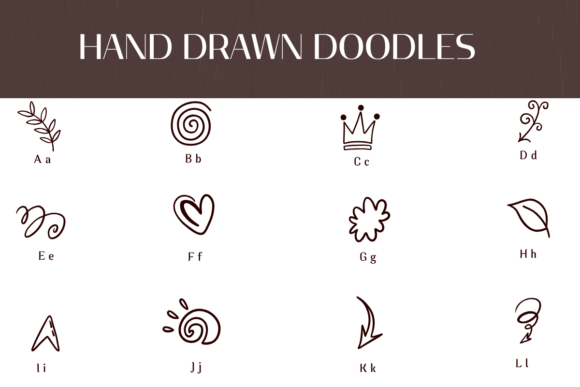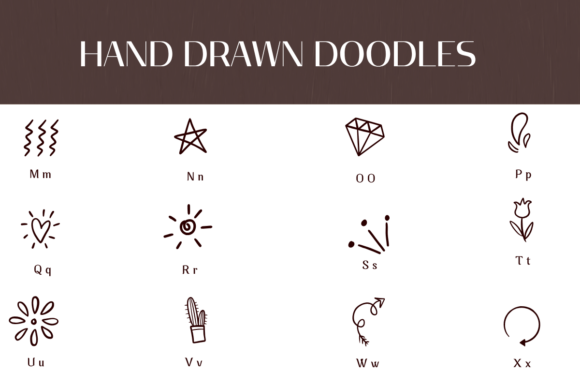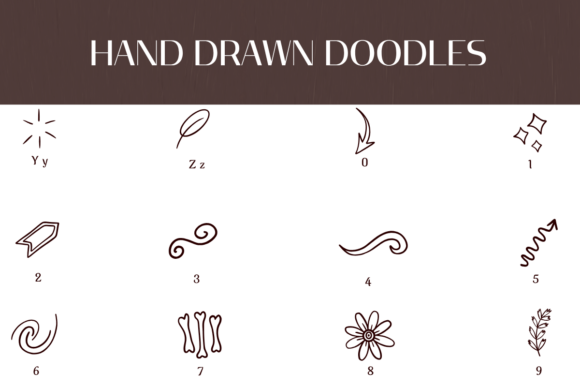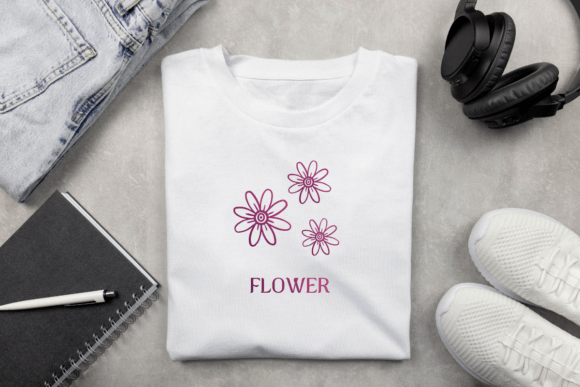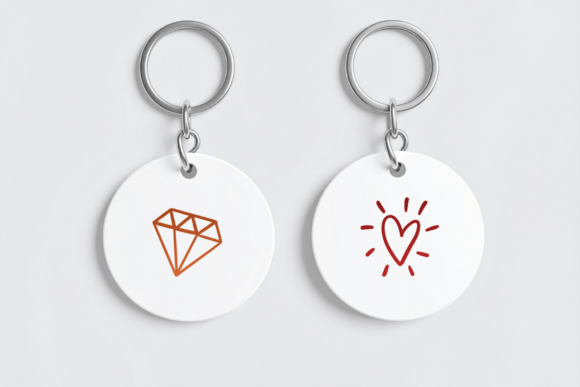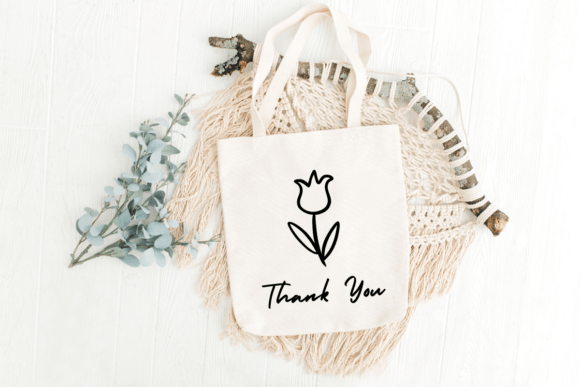
Introducing Hand Drawn Doodles Font: Add a Whimsical Touch to Your Digital Workspace
In the digital age, it’s easy to get lost in a sea of uniformity and sameness. But what if you could infuse your digital workspace with a touch of authenticity and whimsy? Look no further than Hand Drawn Doodles, a comprehensive dingbats font designed to bring creative storytelling to life. This versatile font is perfect for designers, crafters, and anyone looking to add a personal touch to their digital creations.
A Vast Array of Handcrafted Icons
Hand Drawn Doodles features an extensive collection of handcrafted icons, carefully designed to bring a sense of warmth and personality to your digital projects. From organic botanical elements and celestial suns to playful arrows, crowns, and geometric sparkles, this font has everything you need to add a touch of magic to your designs. Whether you’re creating a bullet journal, social media post, or educational material, Hand Drawn Doodles has got you covered.
Perfect for Creative Storytelling
Hand Drawn Doodles is more than just a font – it’s a tool for creative storytelling. With its vast array of icons and whimsical design, this font is perfect for bringing your ideas to life. Imagine adding a playful touch to your bullet journal, or using the font to create engaging social media posts that stand out from the crowd. The possibilities are endless, and with Hand Drawn Doodles, you can let your creativity shine.
Use Cases for Hand Drawn Doodles
So, who can benefit from Hand Drawn Doodles? The answer is anyone looking to add a touch of personality to their digital creations. Here are just a few use cases for this versatile font:
- Bullet Journal Enthusiasts: Add a personal touch to your bullet journal with Hand Drawn Doodles. From decorative headers to playful icons, this font has everything you need to create a unique and visually appealing journal.
- Social Media Managers: Stand out from the crowd with Hand Drawn Doodles. Use the font to add a touch of personality to your social media posts, and watch as your engagement rates soar.
- Artisanal Product Branding: Add a touch of whimsy to your branding with Hand Drawn Doodles. Perfect for artisanal products, this font will help your brand stand out and convey a sense of personality.
- Educational Materials: Make learning fun with Hand Drawn Doodles. Use the font to create engaging educational materials that capture the imagination of your students.
Why Choose Hand Drawn Doodles?
So, why choose Hand Drawn Doodles over other fonts? Here are just a few reasons why this font stands out:
- Unique and Whimsical Design: Hand Drawn Doodles features a unique and whimsical design that’s sure to capture the imagination of your audience.
- Vast Array of Icons: With a vast array of handcrafted icons, Hand Drawn Doodles has everything you need to bring your creative ideas to life.
- Versatile: Perfect for a range of applications, from bullet journals to social media posts, Hand Drawn Doodles is a versatile font that can be used in a variety of contexts.
- Handcrafted with Love: Each icon in Hand Drawn Doodles has been carefully handcrafted with love, ensuring that every detail is perfect and every design element is unique.
In conclusion, Hand Drawn Doodles is a comprehensive dingbats font that’s perfect for designers, crafters, and anyone looking to add a touch of personality to their digital creations. With its vast array of handcrafted icons, whimsical design, and versatility, this font is sure to bring a sense of authenticity and whimsy to your digital workspace. So why wait? Download Hand Drawn Doodles today and start infusing your digital creations with a touch of magic.